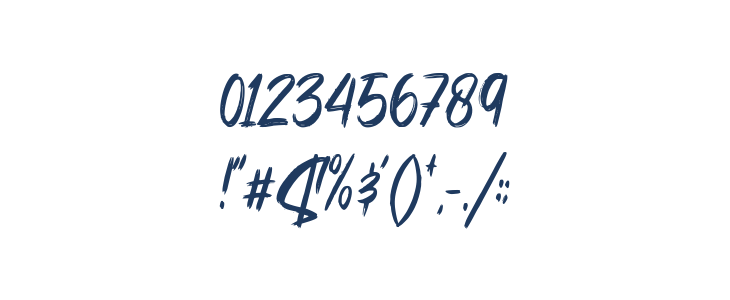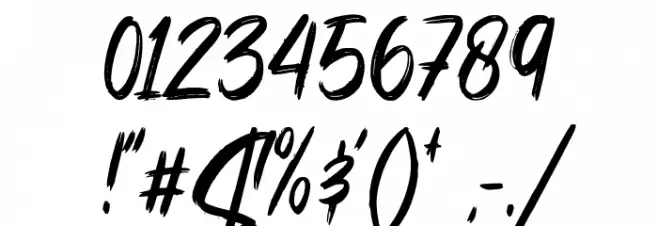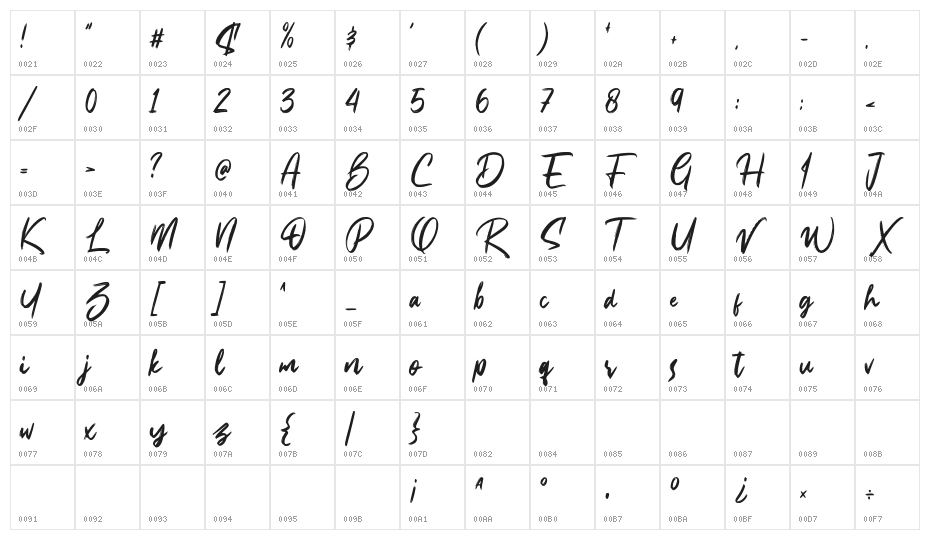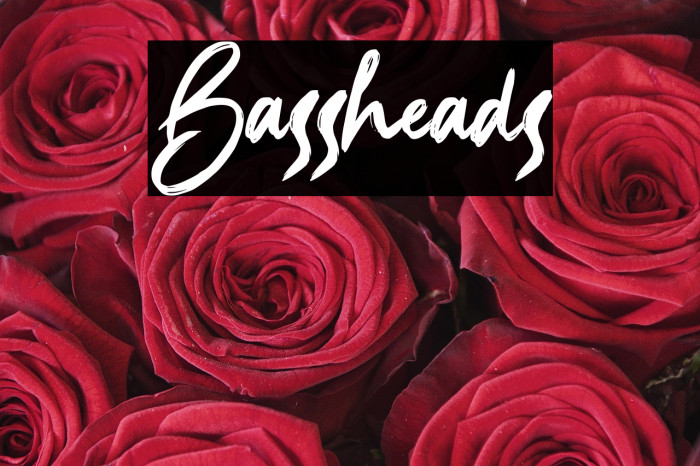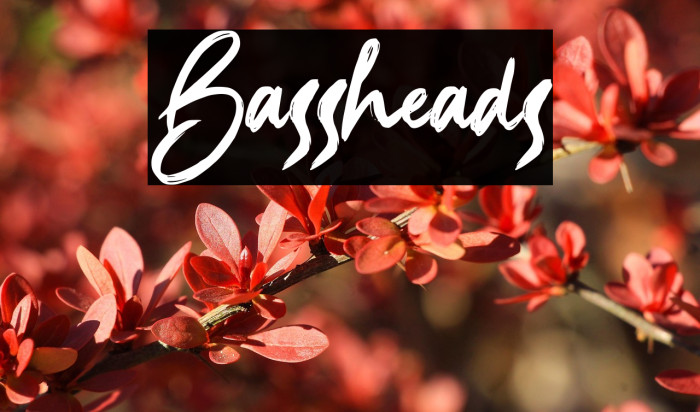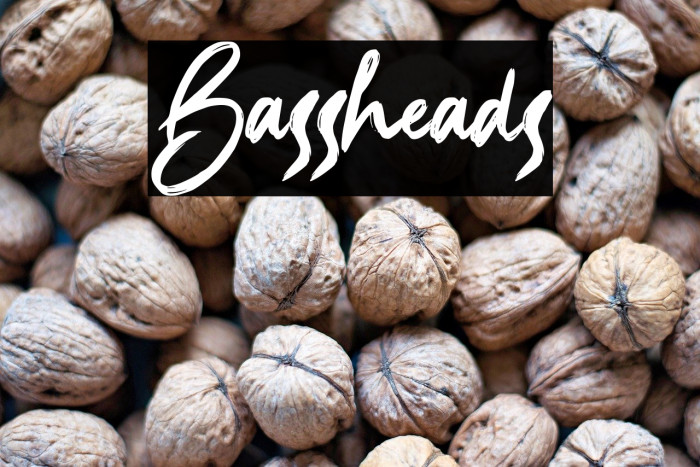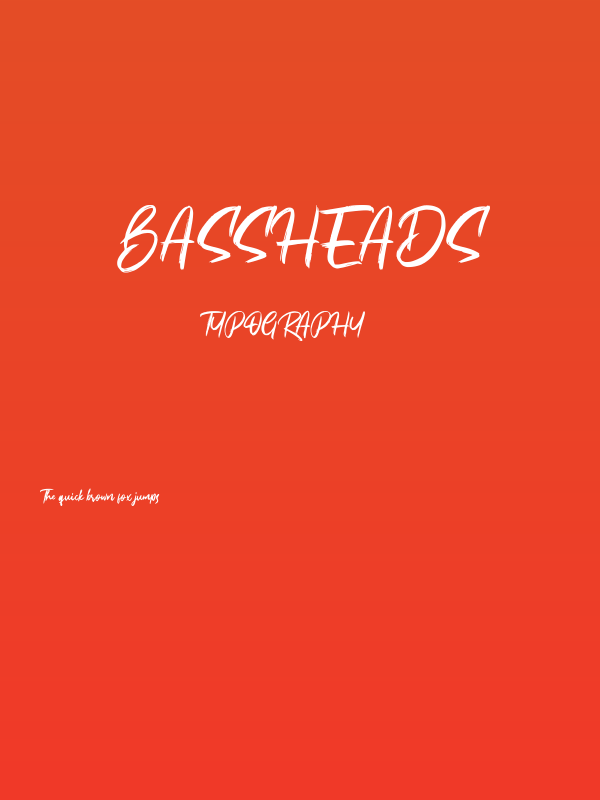
Bassheads Font
Bassheads Description
This font exudes a bold and energetic vibe with its dynamic brush strokes and expressive character shapes. The letters are crafted with a sense of movement, giving a lively and spontaneous feel. The uppercase letters are slightly more structured, while the lowercase letters maintain a fluid and freeform style. Numbers and special characters are consistent with the overall aesthetic, adding to its versatility. The font's unique style is perfect for projects that require a personal touch or a sense of urgency and excitement.
| Proposed Projects | Ideal for branding, posters, music album covers, and any project needing a lively, personal touch. |